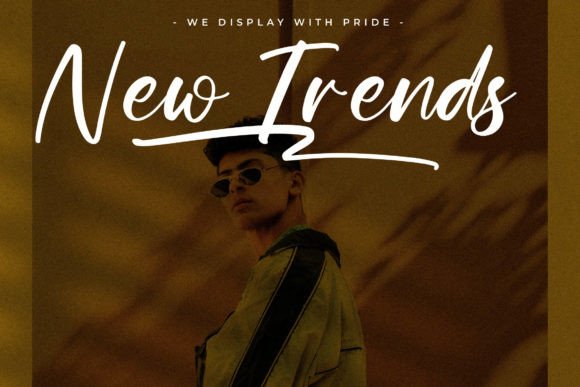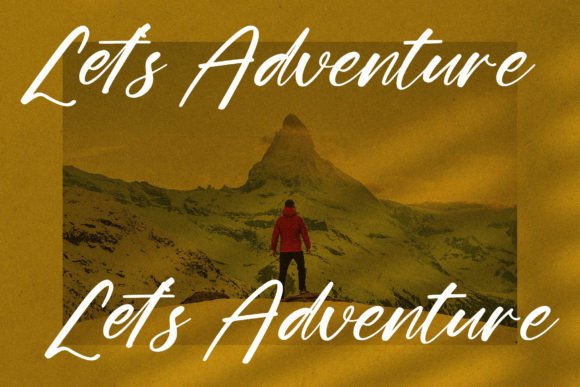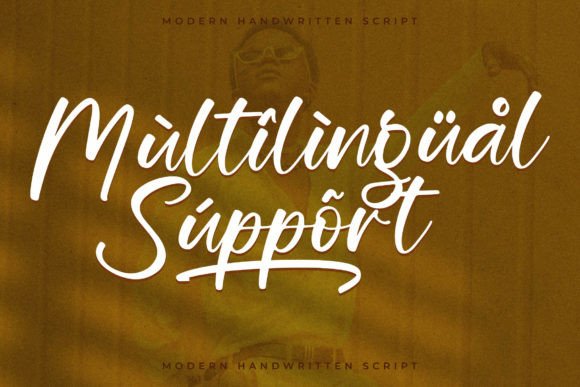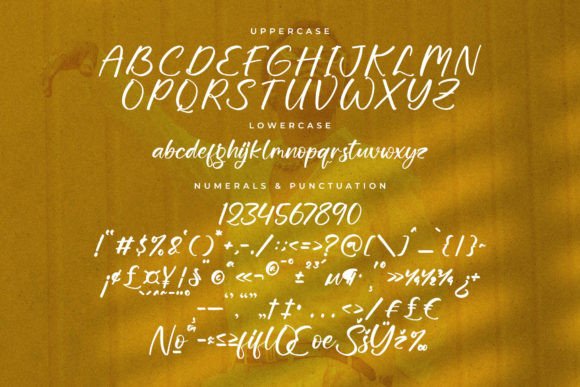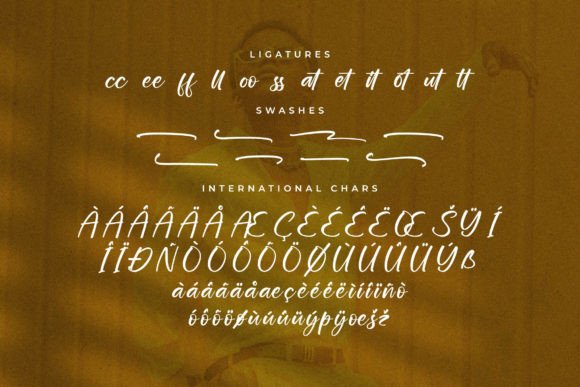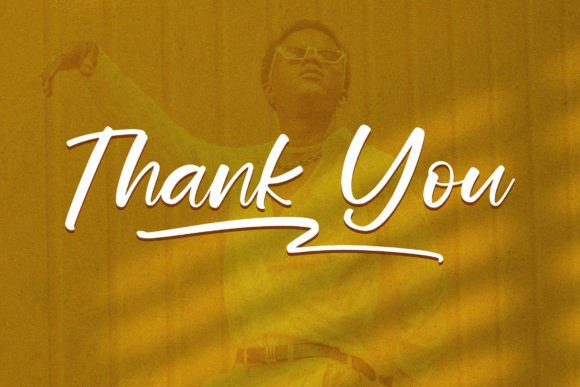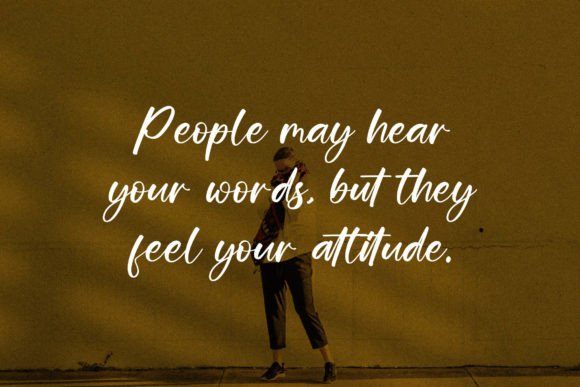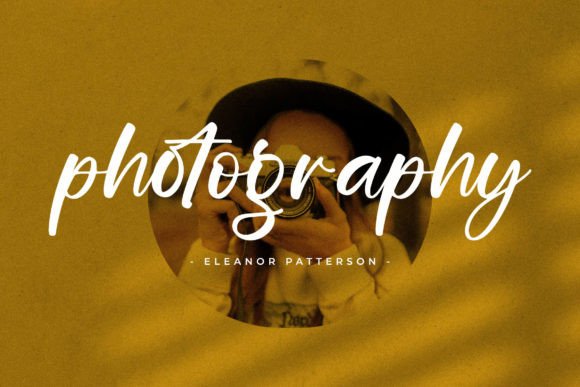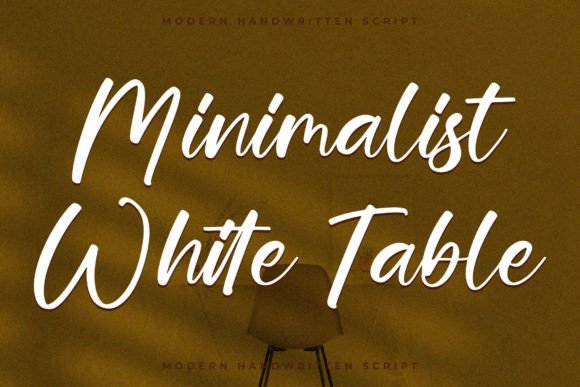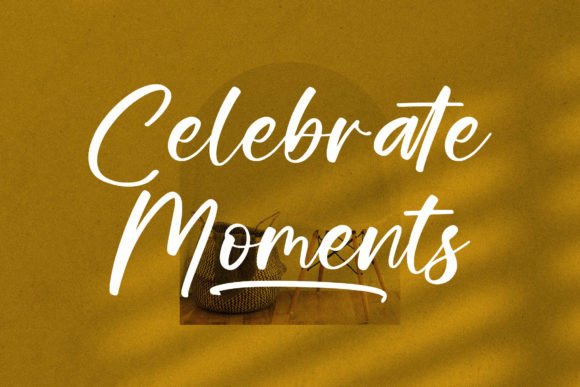
Mathisde Font
About Mathisde Font
Mathisde font is a modern handwritten typeface that blends contemporary style with a natural, flowing script. Its design is versatile, making it suitable for a wide range of creative projects. Whether you are working on logos, branding, homeware designs, or product packaging, Mathisde adds a beautiful script taste that enhances your work.
Modern Handwritten Style
Mathisde features smooth, flowing lines that capture the charm of authentic handwriting. This makes it perfect for projects that need a personal, crafted feel while maintaining a modern and professional look. The font balances legibility and style, making your text stand out without sacrificing clarity.
Perfect for Branding and Packaging
This font works wonderfully for branding projects where you want to convey elegance and creativity. From logos to product packaging, Mathisde adds a unique signature touch. It’s particularly effective for brands looking to establish a friendly yet stylish presence.
Great for Apparel and Merchandise
Mathisde is ideal for apparel design, including t-shirts, mugs, and shopping bags. Its handwritten charm brings personality to merchandise, making your products more appealing and memorable to customers.
Versatile for Invitations and Stationery
This font also shines on invitations, greeting cards, and labels. Its delicate script adds a warm and inviting feel, perfect for weddings, special events, and personal celebrations. Mathisde enhances every project with its elegant and contemporary style.
Why Choose Mathisde Font?
Mathisde font combines modern sophistication with the warmth of handwritten scripts. It’s a versatile tool for designers who want to add a personal yet polished look to their projects. From digital to print media, Mathisde ensures your designs are both stylish and readable.
Elevate Your Designs with Mathisde Font
Add Mathisde font to your design toolkit and experience the beauty of a modern handwritten script. Its versatility and elegance make it a valuable asset for creative professionals and hobbyists alike. Whether for branding, packaging, apparel, or invitations, Mathisde delivers a distinctive and stylish finish.